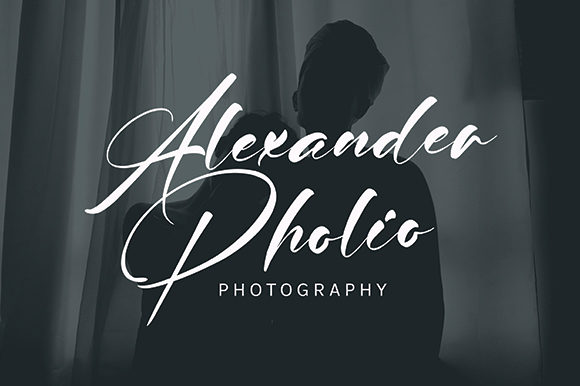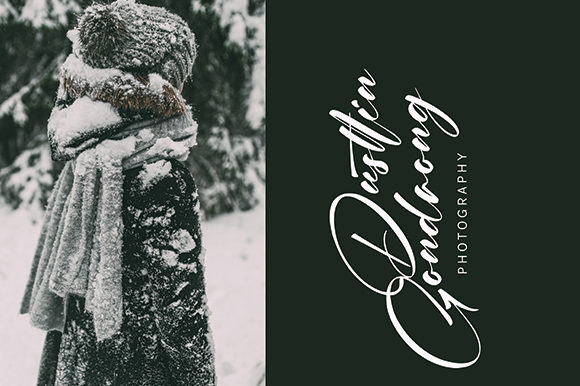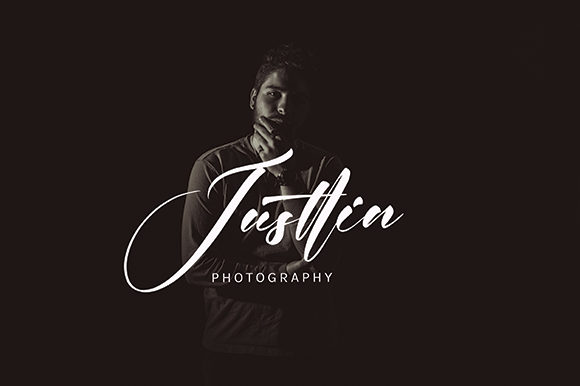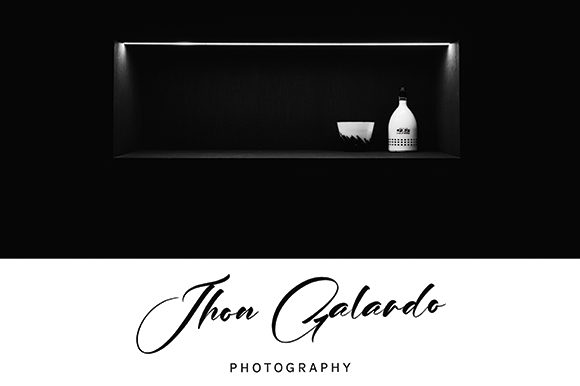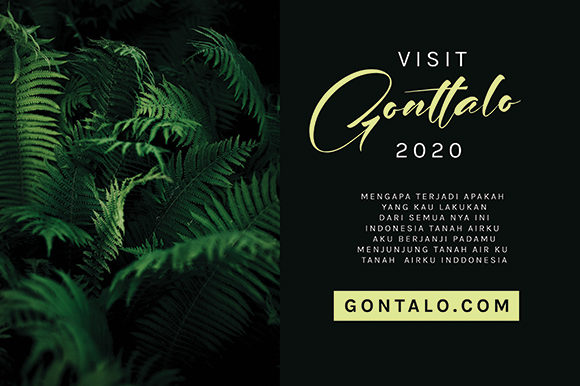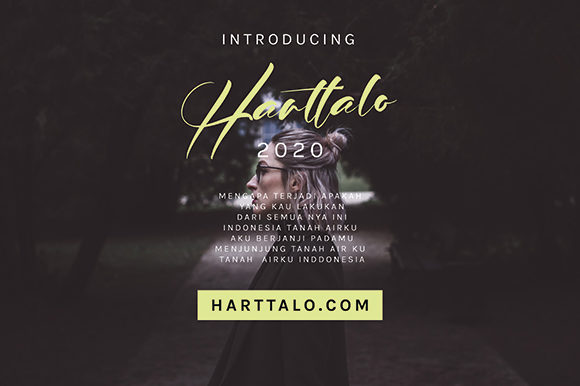
Jhoni Alatta Font
About Jhoni Alatta Font
Jhoni Alatta is inspired by classic typography and brings its own unique style to any design project. It features an incredibly versatile style. Whether you’re looking for fonts for Instagram or calligraphy scripts for DIY projects, Jhoni Alatta will turn any creative idea into a true piece of art!